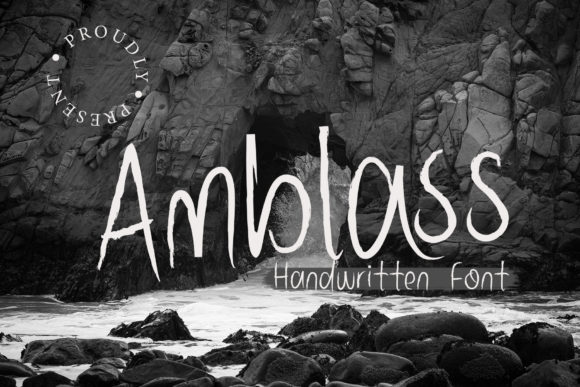
**Indulge in the Allure of Amblass, an Enchanting Hand Lettering Font**
Unleash your creativity with Amblass, an exquisite script font that will captivate your senses. Its meticulously crafted strokes dance across the page, exuding an air of elegance and whimsy. Designed to evoke the charm of handwritten letters, Amblass effortlessly adds a touch of warmth and personality to any project.
**A Symphony of Brushstrokes, Embracing Limitless Possibilities**
With Amblass, the possibilities are endless. Its versatility knows no bounds, making it an ideal choice for a myriad of design applications. From heartfelt invitations and enchanting branding materials to eye-catching social media posts and soul-stirring artwork, Amblass transforms ordinary words into extraordinary masterpieces.
**Immerse Yourself in a World of Creative Expression**
Allow Amblass to guide you on a journey of self-expression. Its fluid lines and graceful curves invite you to pour your heart and soul into every creation. Whether you're a seasoned designer or just starting your artistic adventure, Amblass empowers you to make a lasting impression.
**A Font that Speaks Volumes, Whispering Tales with Every Stroke**
With Amblass, your designs transcend mere words. Its expressive strokes convey emotions and tell captivating stories. Its whimsical nature sparks joy, while its sophisticated elegance exudes confidence and poise. Amblass is more than just a font; it's an artistic muse, inspiring you to create works of art that resonate with your audience.
**Embrace the Beauty of Imperfection, Embark on a Creative Odyssey**
Amblass celebrates the imperfections that make your creations uniquely yours. Its hand-drawn charm adds a touch of authenticity and warmth, inviting viewers to connect with your designs on a personal level. With Amblass, you're not just creating designs – you're crafting memories and forging unbreakable connections.